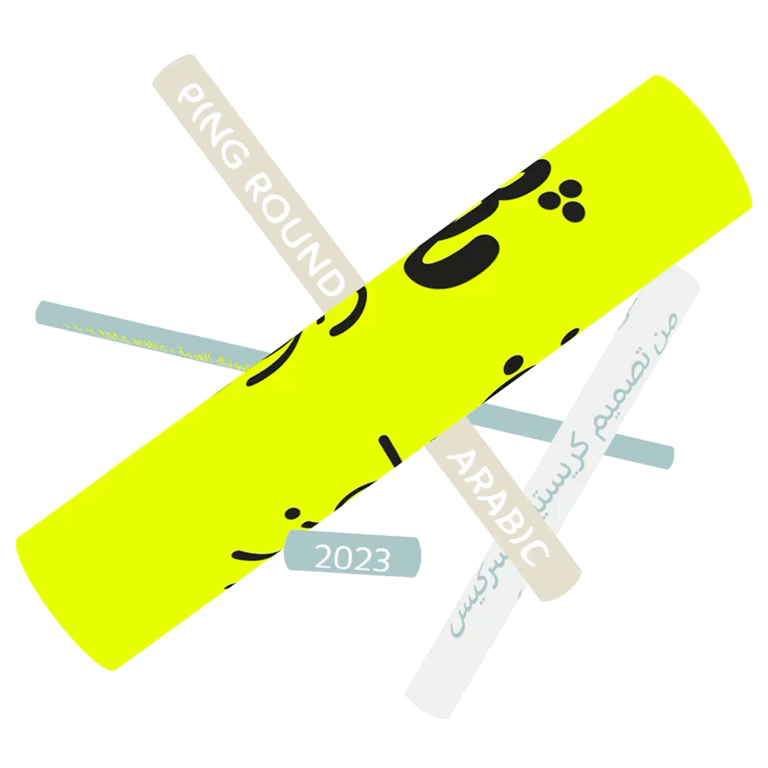
Ping Round, an unapologetically warm but constructed typeface
In 2020, we published Ping Arabic, the counterpart of our sister foundry Typotheque's Ping, dubbed a 'whole-world typeface' for its support of a large number of writing systems including Latin, Arabic, Cyrillic, Greek, Armenian, Japanese, Korean, Chinese. The complete project went on to win a Gold European Design award and Ping Arabic easily became one of our most popular fonts.
We introduced Ping Arabic as typeface with constructed and organic influences due to its simplified and fairly geometric forms infused with the influence of the hand and writing.
Ping Round Arabic takes the organic elements (i.e. continuous strokes, friendly and comfortable proportions, compact forms) a step further by rounding all the stroke terminals. This makes Ping Round even warmer, more approachable and suitable for a wide range of applications from signage to children's books.
Ping Round Arabic was designed by Kristyan Sarkis. Oscar Guerrero assisted with the production of the fonts and Liang Hai engineered the final fonts. The Latin counterpart was designed by Peter Bilak assisted by Nikola Djurek.